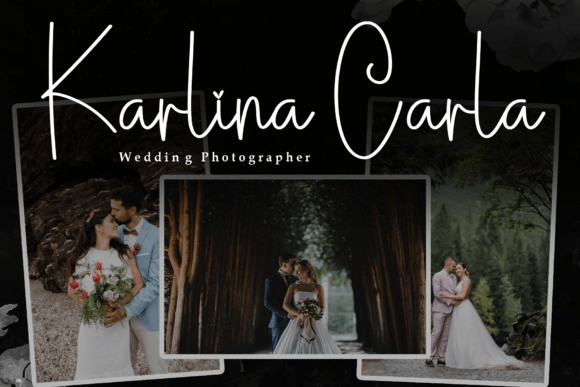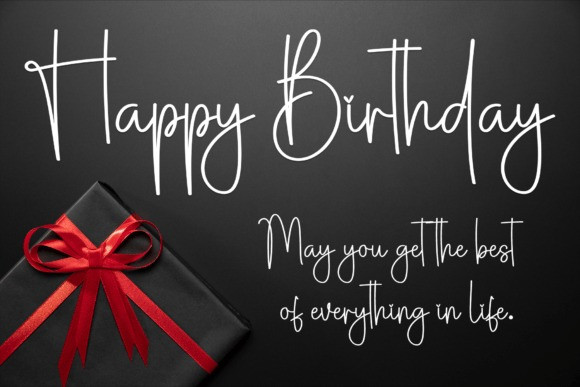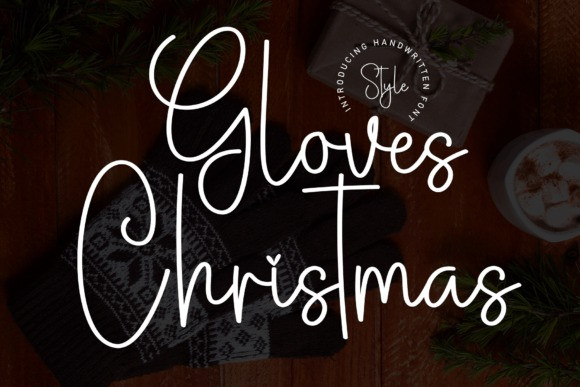
Gloves Christmas Font
Gloves Christmas Font is a charming and whimsical handwritten font that captures the festive spirit with its playful and slightly messy appearance. Inspired by the joy of the holiday season, this font adds a personal touch to your projects, resembling handwritten notes or doodles on a cozy winter day. Perfect for creating a warm and festive atmosphere in your designs, Gloves Christmas brings a touch of handmade charm to your holiday messages and creative projects.